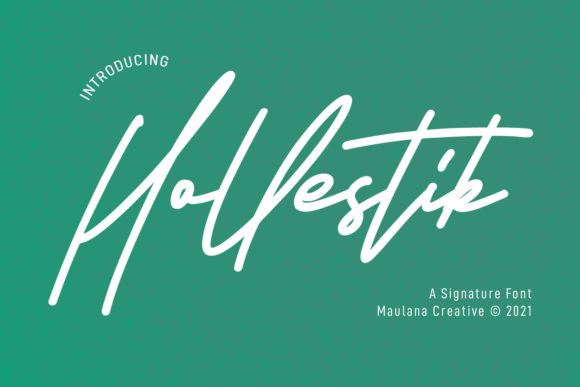
Prepare yourself to be captivated by Hollestik Signature, the epitome of elegance and charm in the world of typography. This exquisite script font, meticulously crafted by the skilled hands of Maulana Creative, is not just a mere collection of letters; it's an artistic expression that will infuse your designs with a touch of sophistication and allure.
Hollestik Signature's graceful curves and delicate strokes evoke a sense of timeless beauty, reminiscent of handwritten letters penned with care and attention. Each character dances across the page, carrying with it a story untold, a message yet to be discovered. The casual and thin letterforms exude an air of effortless elegance, lending a touch of refinement to any project they grace.
Unleash your creativity and let Hollestik Signature guide you to new heights of design excellence. Whether you're crafting logos, branding materials, wedding invitations, or simply adding a personal touch to your digital creations, this font will elevate your work to new heights. Its versatility knows no bounds, making it the perfect choice for a wide range of projects, from elegant invitations to playful social media posts.
With Hollestik Signature, you'll discover a font that's more than just a collection of characters; it's an experience. Let its delicate strokes transport you to a world of beauty and inspiration, where your designs take on a life of their own. Embrace the power of Hollestik Signature and watch as your creative visions come to life with an unmatched grace and sophistication.
"Hollestik Signature is an absolute dream to work with. Its elegant curves and graceful strokes add an instant touch of sophistication to any design. I highly recommend it to anyone looking for a font that truly stands out." - Sarah J., Graphic Designer
"I was immediately drawn to Hollestik Signature's unique charm. It's the perfect font for creating eye-catching logos and branding materials that leave a lasting impression. My clients love it!" - John D., Branding Expert
"Hollestik Signature is my go-to font for wedding invitations. Its delicate strokes and timeless beauty create a sense of romance and elegance that perfectly complements the special occasion." - Mary S., Wedding Planner